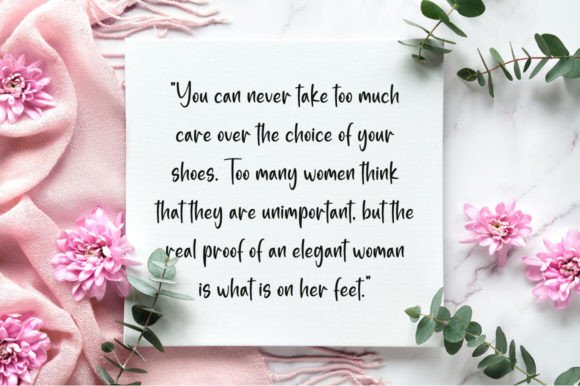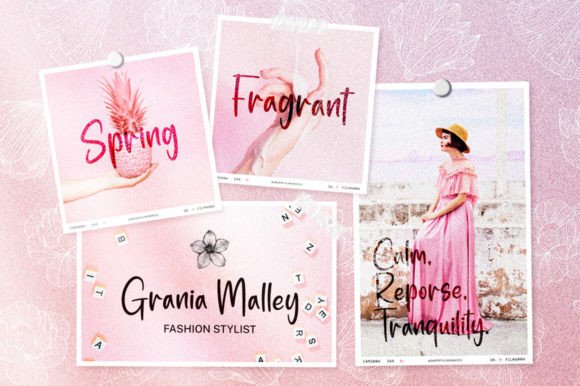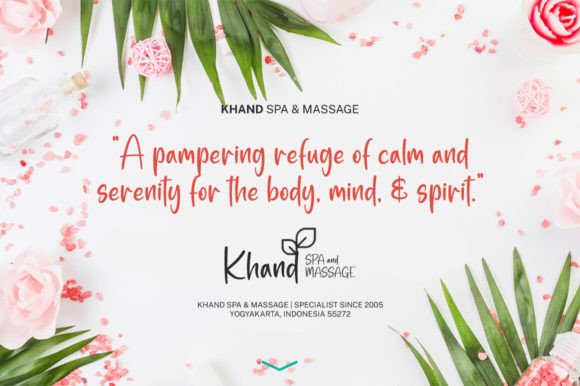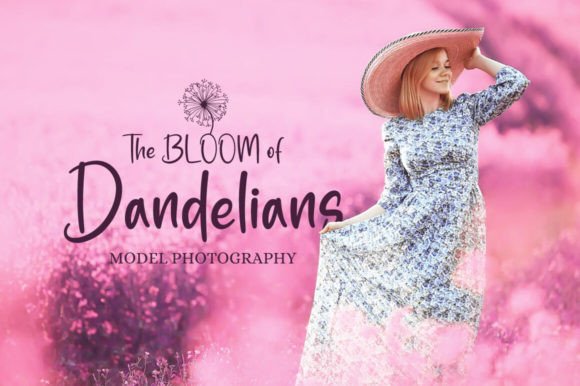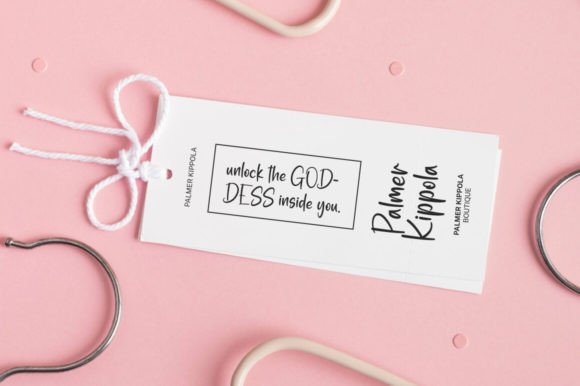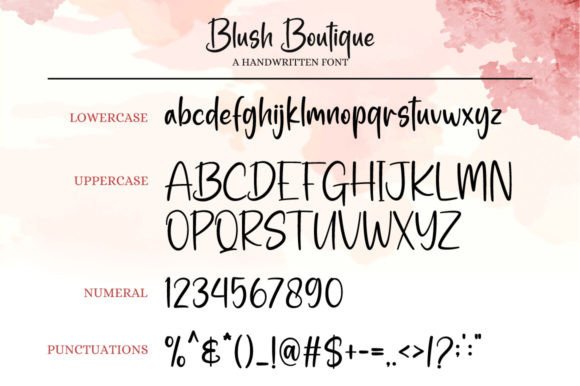
Introduction to Blush Boutique Font
Blush Boutique is a lovely and timeless handwritten font.
It is the best choice for creating eye-catching logos, branding, and quotes .
Key Features of Blush Boutique Font
Why Choose Blush Boutique Font?
Blush Boutique Font offers exceptional quality and versatility, making it a valuable addition to your design toolkit. Whether you’re creating for personal projects or commercial use, Blush Boutique Font delivers professional results.